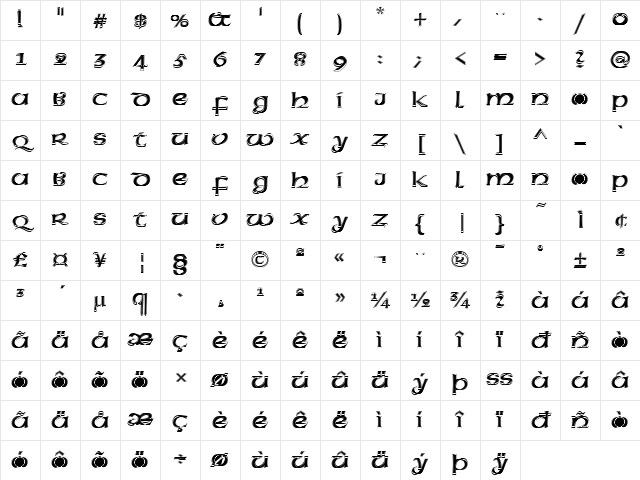
American Uncial D In1 Regular
Foundry: by URW
Design Context for American Uncial D In1
American Uncial D In1 is a composed and adaptable typeface that performs quietly and consistently across a wide range of design contexts.
Pro Tip: Use American Uncial D In1 in both headline and body roles to test its range before committing to a single application.